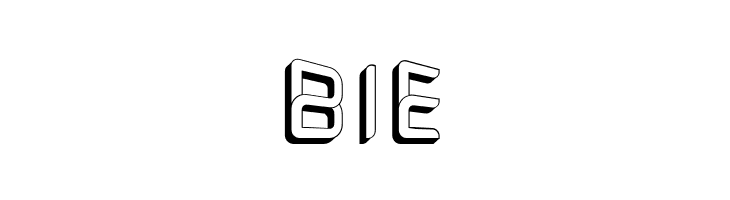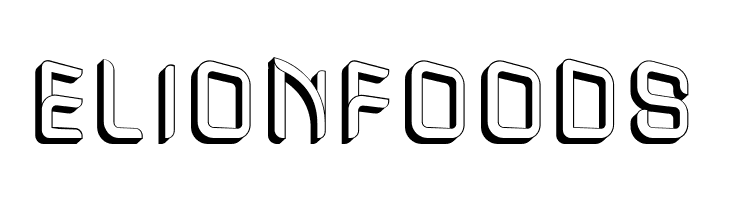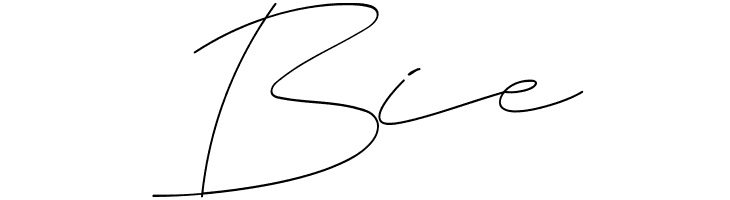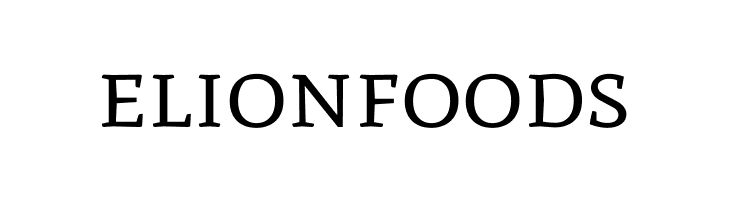
• Matchbox
• Matchmaking Demo
A delicate, flowing script font with elegant, continuous lines.
• Matchstick
A playful, geometric font with dotted and linear matchstick-like elements.
• Matchstick Regular
A playful, hand-drawn font with a whimsical and informal style.
• Matchup Regular
A bold, 3D font with a modern, playful aesthetic and shadow effects.
• Matchworks
• Mate SC Regular
A classic serif font with elegant proportions and refined serifs.
• Mate-Regular
A classic serif font with a modern touch, offering elegance and readability.
• Matejino
A modern, narrow font with medium contrast and playful special characters.
• Matejo
A distressed, decorative font with vintage flourishes.